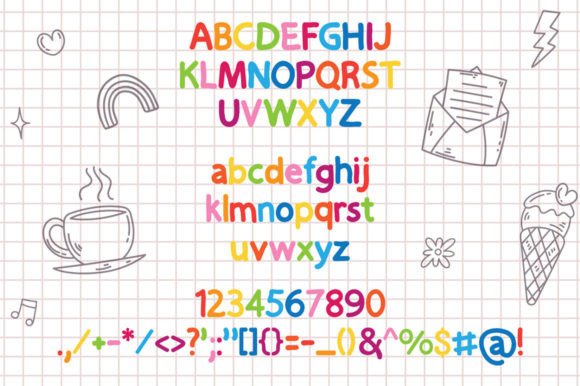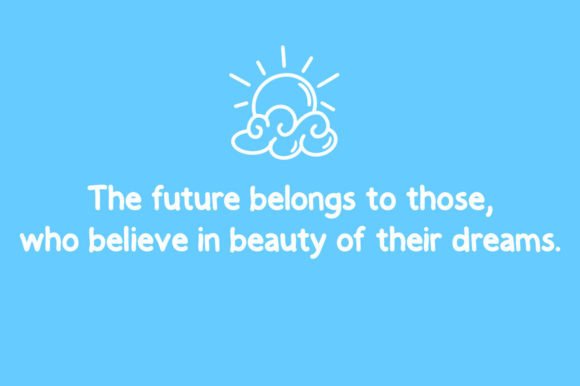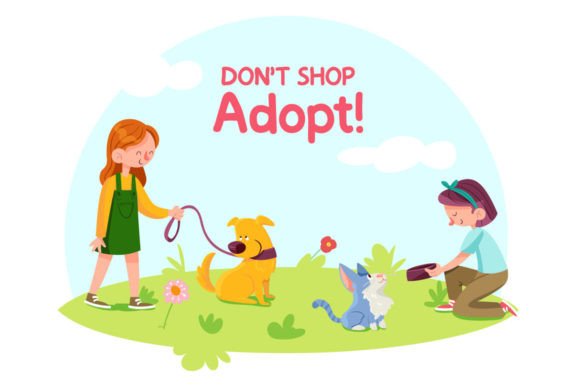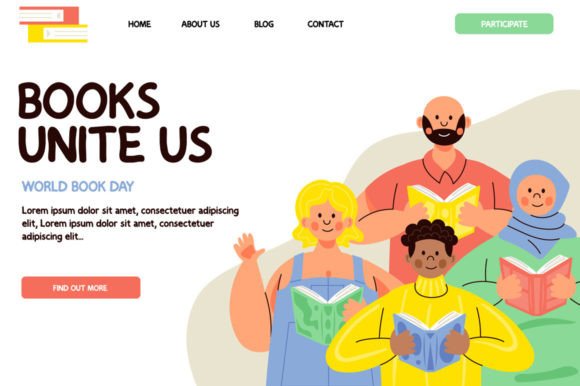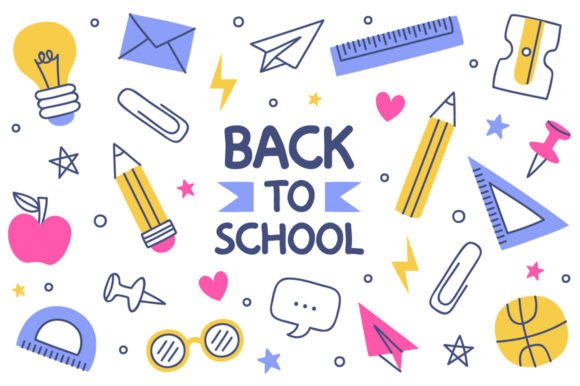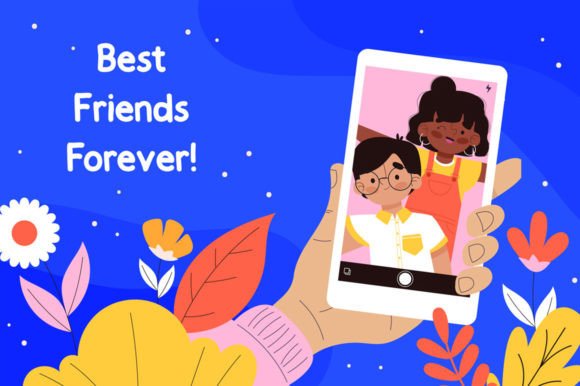
Introduction to Cartoon Mood Font
Cartoon Mood is an attractive and bright handwritten font that adds a cheerful touch to your designs.
Ideal for creating a playful and lively look in branding, children-related designs, and eye-catching headlines .